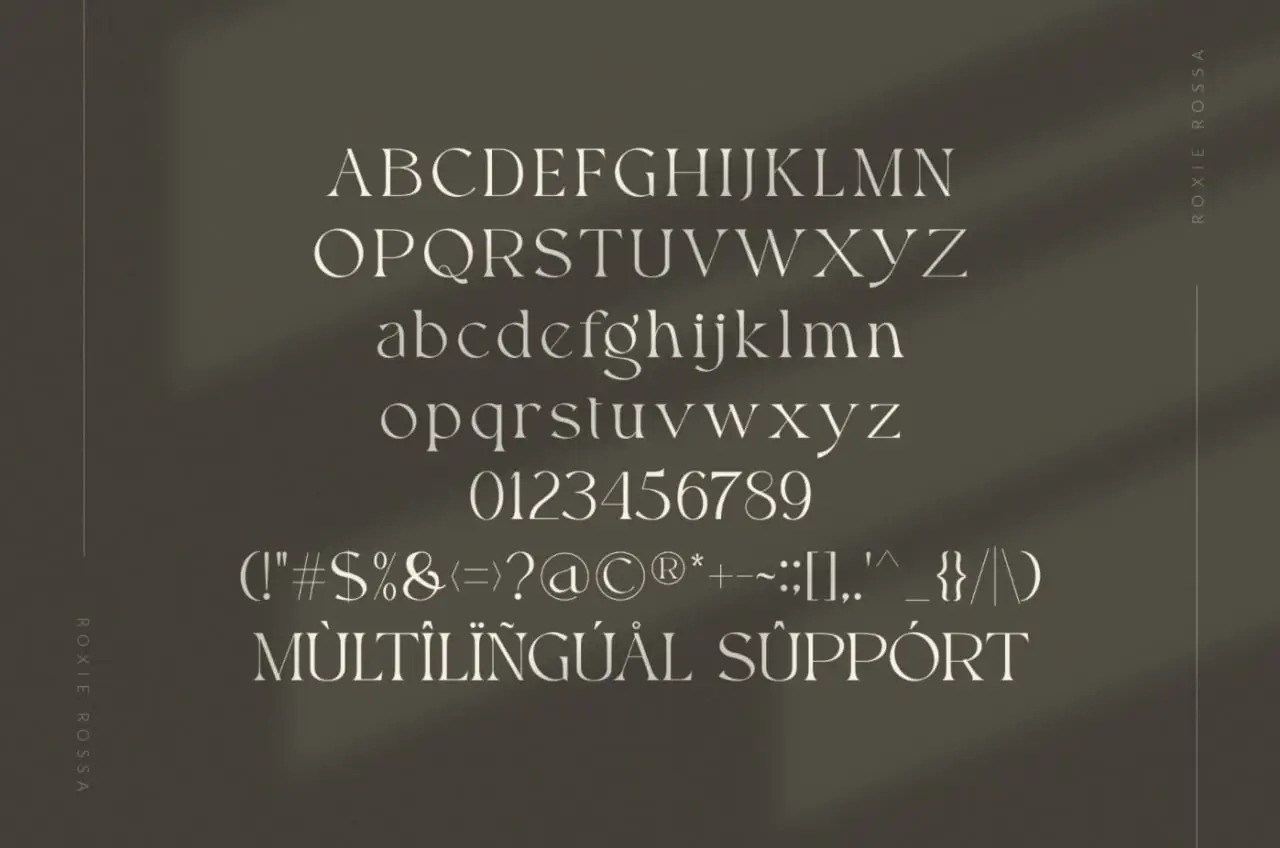
Roxie Rossa-Free Ligature Serif Font
The Roxie Rossa-Free Ligature Serif Font is a beautifully crafted typeface that combines elegance with modern design. This font features unique ligatures that enhance its visual appeal, making it perfect for a variety of applications.
• Stylish serif design
• Unique ligatures for added flair
Ideal for branding, logos, print materials, and web design, the Roxie Rossa font can elevate your projects with its sophisticated style.